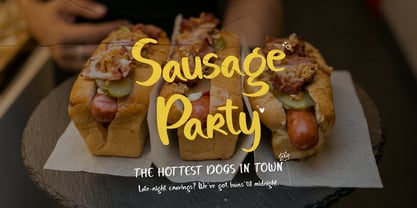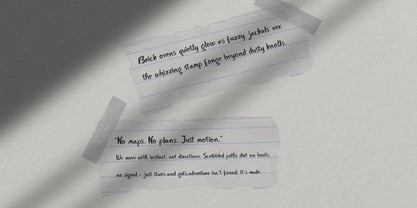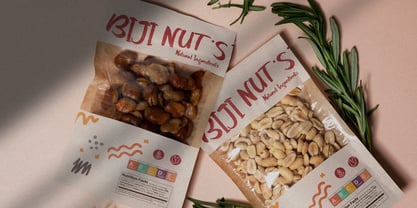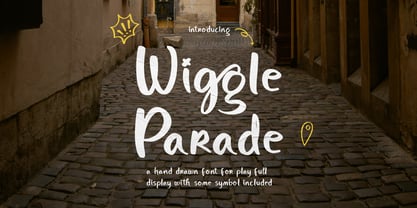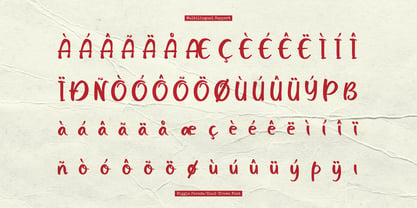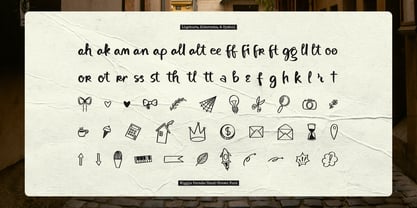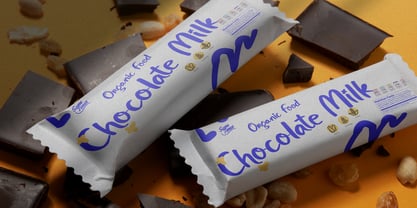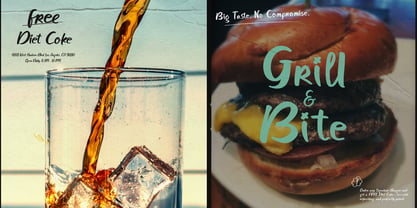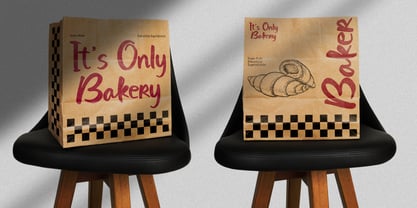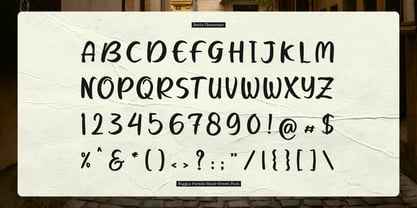
Wiggle Parade
The Wiggle Parade Font Family was designed by and published by Tini Fitriani. Wiggle Parade contains 2 styles and family package options. More about this family
Wiggle Parade | Hand Drawn Playful, from Gracetypestudio, suitable for any projects such as: logos, branding projects, homeware designs, product packaging, mugs, quotes, posters, shopping bags, t-shirts, book covers, name card, invitation cards, greeting cards, label, photography, watermark, special events, and all your other lovely projects that need a Hand Drawn Playful taste.
• Regular and Italic
• Alternate and Ligature